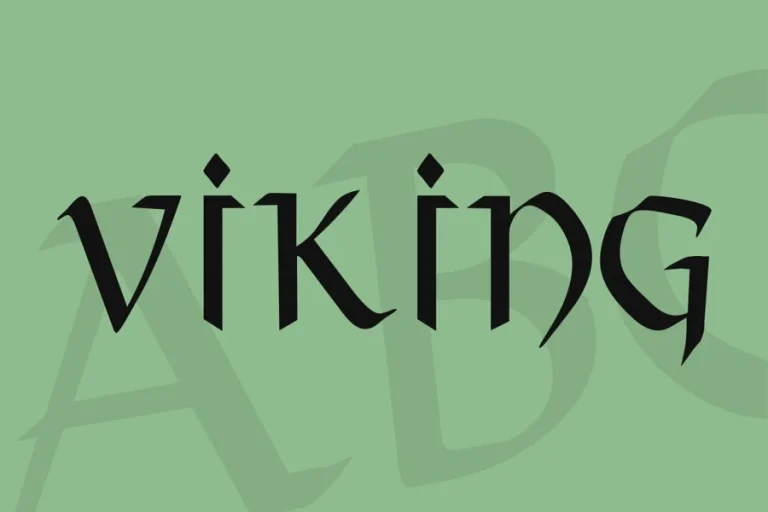
Viking Font Styles Inspired by Norse Heritage
Viking Font
The Viking fonts are so strong, that they immediately make people think about long ships, runestones and Nordic ancient legends. These fonts are conceived on the basis of the Viking Age visual culture, basing on runic inscriptions, carved stone letters, and medieval Scandinavian art. This dramatic style of lettering is frequently used by the designers who need to give an impression of power, tradition, and urban legends.
The meaning of a Viking font can be interpreted differently in the present day, but the main concept is the same. It captures the rough nature of Norse warriors and the symbolic richness of ancient runes. This style has remained popular in the creative industries, whether in branding and logos, tattooing, or in digital art work.
The Historical Roots of Viking Font
In order to see why a Viking font is so appealing it helps to go back to the history of the font. The Norse people utilized a writing system called the runic alphabet during the Viking Age which was around the years between 8 th and 11 th century. The Elder Futhark is one of the most commonly known versions and it was an early runic system of 24 characters.
The runes were hewn into stone, wood and metal. Their shapes were angular and straight since they were frequently drawn with knives or chisels. The curved lines were not common as they were more difficult to cut in hard materials. This practical lapse predetermined the aggressive and geometric look which the modern Viking-informed typeface still bears.
The presence of runestones in Scandinavia, particularly in such locations as Sweden and Denmark demonstrates that lettering was not only useful but is also ornamental. Warriors, territories, and heroic deeds were frequently celebrated by inscriptions. These graphic traditions have a significant effect on the appearance and sensation of modern Viking font designs.
Key Characteristics of Viking Font Styles
Viking fonts are usually characterized by sharp edges, heavy vertical lines, and ornamentation which are as though carved lines. Triangular forms, long serifs, and symmetry are also frequently used in designs in reference to a runic appearance.
Boldness is another characteristic of it. The letters are usually heavy and down-to-earth. This makes the typography possess an impressive effect hence its wide application in logos, name titles in games and works of fantasy nature.
Certain Viking fonts are more reminiscent of actual runic fonts, whereas others are a mix of Norse fonts and the contemporary Latin fonts. The outcome is a variety of styles. Some of them are very readable and can be used in headlines, whereas others are more ornamental and should be used sparingly.
Designers also play around with texture. The font can be made to look old by a distressed or stone-carved look. The metal finish or carved appearance can add to the correlation to weapons, armor, and shields about the image of Vikings.
Viking Font in Modern Media and Pop Culture
The revived interest in Norse in the popular culture has led to renewed interest in Viking-style lettering. Atmospheric typography is often created with bold, rune-inspired typography in films, television series, and video games.
To illustrate, such productions as Vikings contributed to the revival of Norse history in general discourse. The visual branding of the show tended to use bold, angular letterforms reminiscent of carvings of an ancient nature.
On the same note, the video game Assassin Creed Valhalla promotes with Norse typography. The font type supports the setting of the game in England and Norway of the 9 th century.
Even the universe of Marvel has made the aesthetics of Vikings gain popularity. The Norse mythology is heavily influenced in the character Thor. Designs of promotions of Thor related films tend to be dramatic and metallic fonts that are powerful and ancient.
These cultural factors have resulted in the increased accessibility and recognition of Viking font styles. What was a niche aesthetic has become a mainstream design.
Where and How to Use Viking Font Effectively
There has to be balance when using a Viking font. Its decorative and bold character makes it suitable in certain situations.
It works best with logos, which are history-based, mythology-based or strength-based branding. This style is also common among fitness brands, metal bands, craft breweries and fantasy authors who want to create a rugged image.
Medieval fair posters or Viking festival posters are also affected by this typography. The angular lines immediately give the impression of a historical or mythical theme.
Nevertheless, one should not rely on it too much. The existence of long paragraphs written in a highly stylized Viking font may make them hard to read. More often, numerous designers apply it in titles, headings, or brief phrases and combine it with a lighter body typeface.
Where can Viking font be used?
It is commonly used in logos, posters, game titles, book covers, and designs related to Norse mythology or medieval themes.
Is Viking font suitable for long text?
It is generally better for headlines and short phrases because its decorative style can reduce readability in long paragraphs.
What is the difference between runes and Viking fonts?
Runes were actual writing systems used in the Viking Age, while modern Viking fonts are stylized typefaces inspired by those ancient symbols.